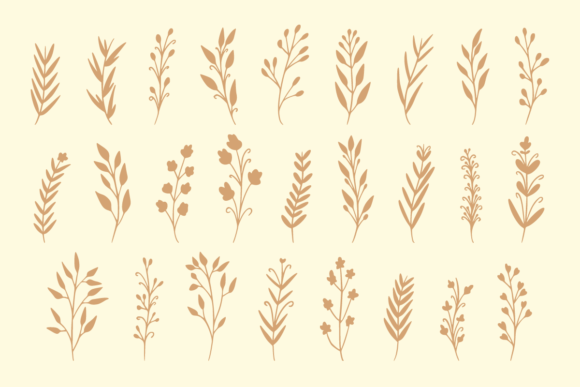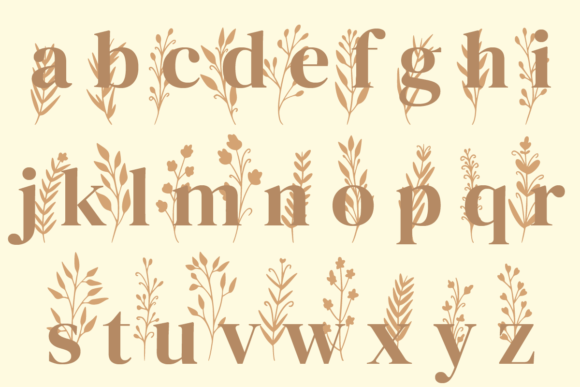
Floresta Font
Introducing “Florista,” a stunning dingbats font that beautifully combines floral elements with elegant line art. This font is meticulously crafted from original hand-drawn sketches, bringing a touch of nature’s beauty to your designs. Whether you’re planning a wedding, creating decorations, designing logos, or working on cosmetic branding, “Florista” is the perfect choice to add a touch of floral sophistication.
With its intricate floral motifs and delicate line work, “Florista” offers a versatile collection of symbols inspired by the enchanting world of flowers. Each glyph is a unique piece of art, capturing the grace and elegance of various blooms. From roses and lilies to daisies and tulips, this font showcases a diverse range of floral elements, allowing you to incorporate them seamlessly into your projects.
The hand-drawn style of “Florista” adds a personalized and artisanal touch to your designs. Each symbol is imbued with the organic and imperfect qualities of hand-drawn artwork, creating a sense of authenticity and charm. The intricate details and graceful curves of the floral motifs make this font a visual delight, perfect for adding a romantic and whimsical ambiance to your creations.
“Florista” is well-suited for a wide range of applications. Use it to design wedding invitations, stationery, and signage, where the delicate floral symbols can enhance the romantic atmosphere of the event. Create stunning logos and branding materials for floral shops, beauty salons, cosmetics, or any business that aims to convey elegance and natural beauty. Incorporate the symbols into packaging designs, product labels, and social media graphics to add a touch of sophistication and style.
The versatility of “Florista” allows you to experiment with different combinations and arrangements. Mix and match the floral elements to create custom compositions that reflect your unique vision. The line art style of the font also provides flexibility, allowing you to resize, rotate, and manipulate the symbols to fit your design requirements.
Whether you’re creating digital designs or working with traditional mediums, “Florista” is sure to elevate your projects to new heights. Its graceful floral symbols will captivate your audience and evoke a sense of elegance and natural beauty. Embrace the artistic allure of “Florista” and let its hand-drawn sketches infuse your designs with a touch of floral enchantment.
So, let “Florista” be your creative companion as you embark on your design journey. Whether it’s wedding-related projects, decorative elements, brand identities, or any endeavor that calls for the beauty of flowers, this dingbats font will serve as a stunning asset. With “Florista,” your designs will bloom with elegance, capturing the timeless allure of the natural world.